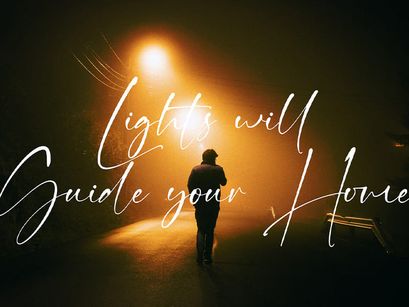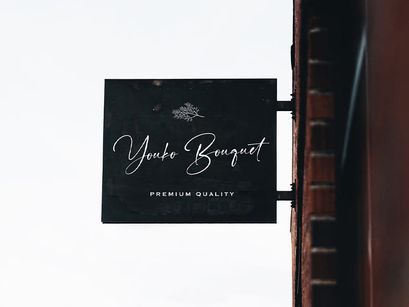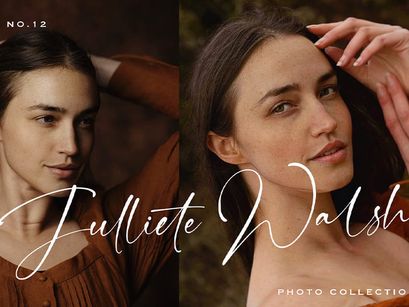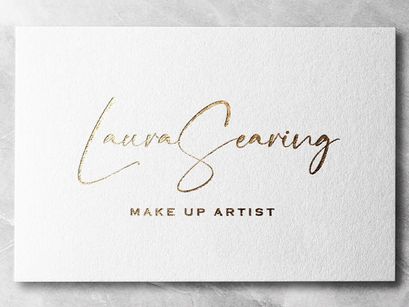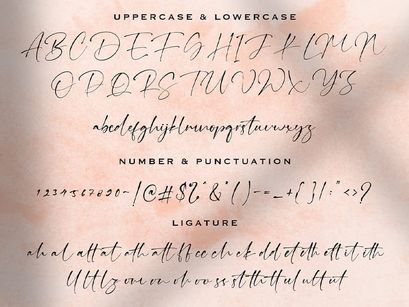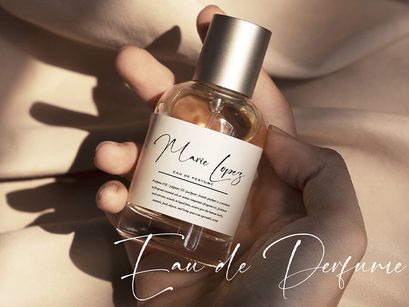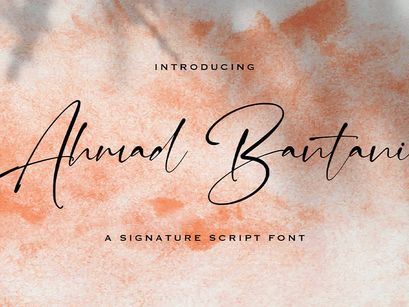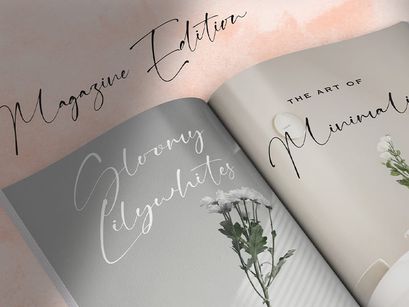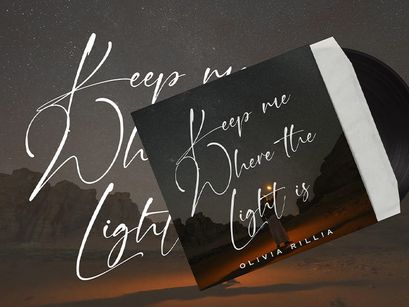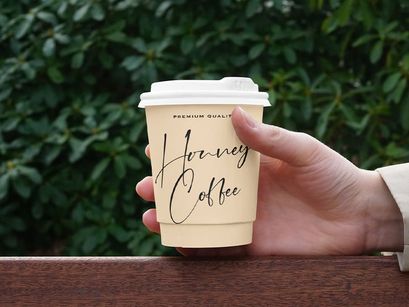
Ahmad Bantani - Signature Font
Introducing Ahmad Bantani - Signature Font
Ahmad Bantani is a delicate, elegant and flowing handwritten signature script font. It has beautiful and well balanced characters and as a result, it matches a wide pool of designs. Add it to your most creative ideas and notice how it makes them come alive!
• Ligatures
• Uppercase and Lowercase letters
• Numbering and Punctuations
• Multilingual Support